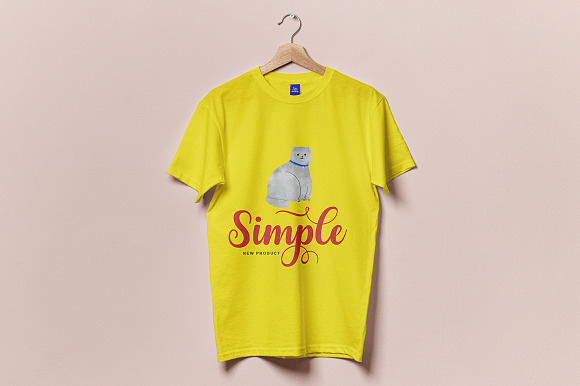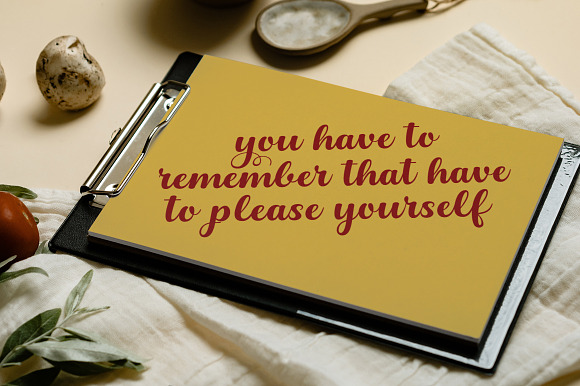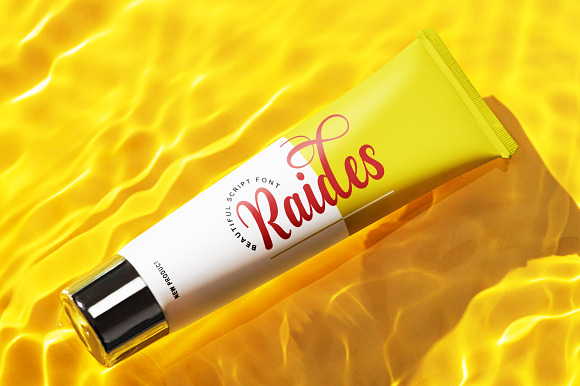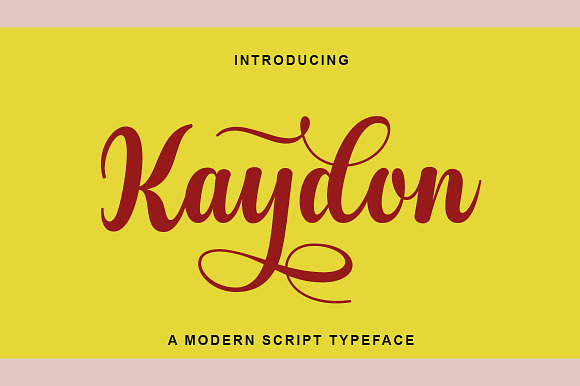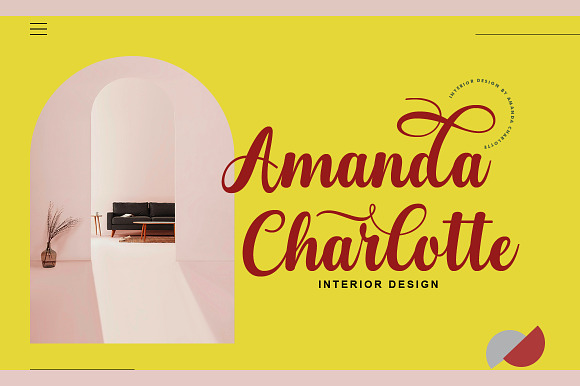
Kaydon Font
Kaydon Script is a script-style typeface that combines classic elements with a modern twist. The font features smooth, elegant lines with fluid strokes, similar to neat, artistic handwriting. The letters in Kaydon Script tend to flow into each other, creating a harmonious, cohesive flow, making it suitable for design projects such as logos, invitations, or graphic designs that require a soft, romantic aesthetic. Kaydon is encoded with PUA Unicode, which allows full access to all additional characters without having to design special software. Mac users can use Font Book , and Windows users can use Character Map to view and copy any additional characters to paste into your favorite text editor/application.